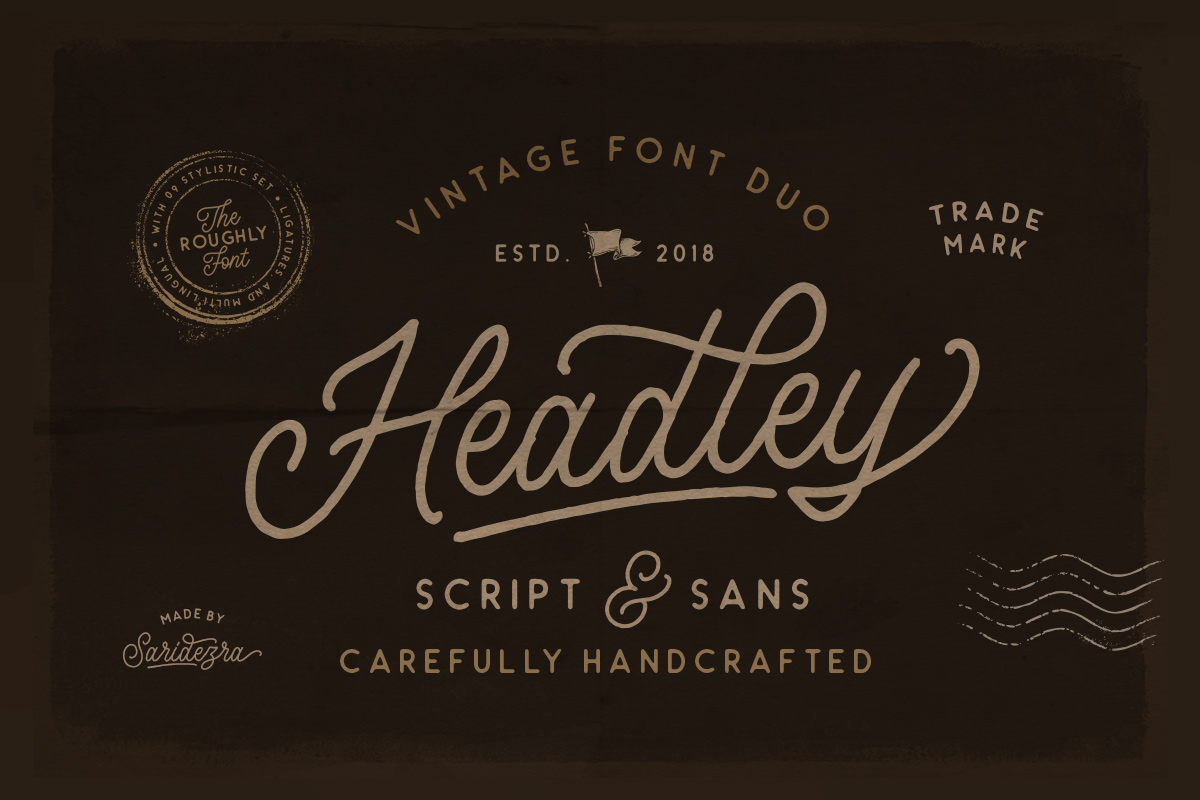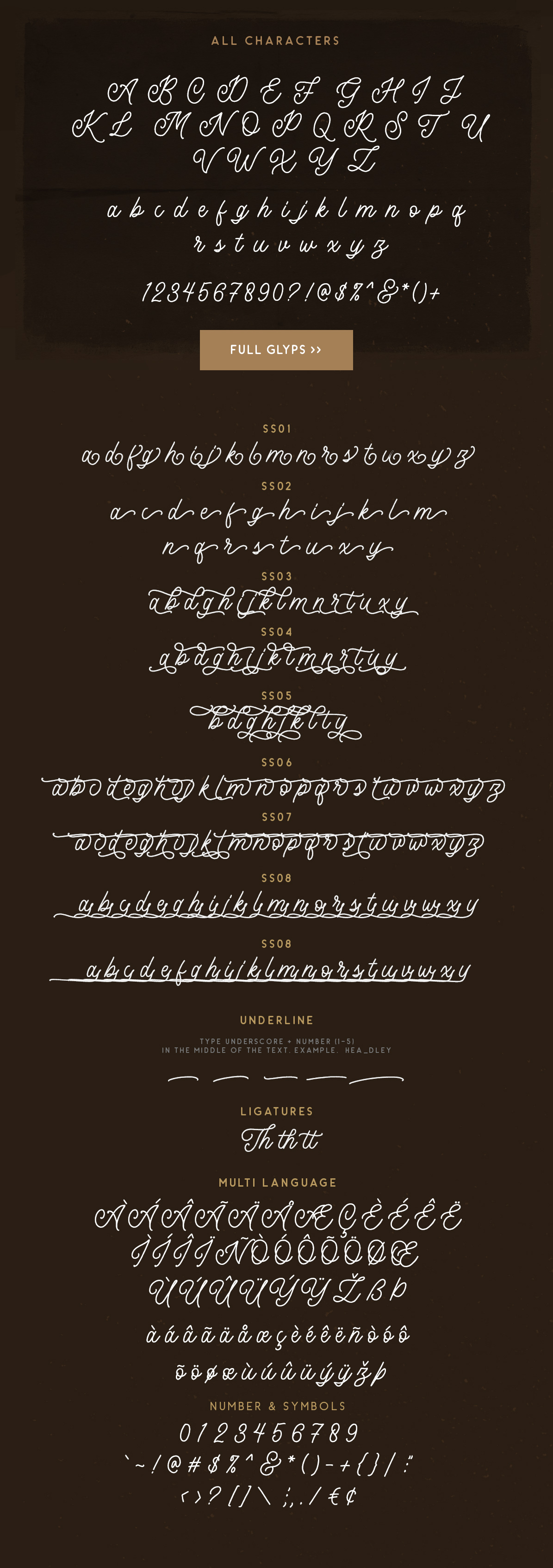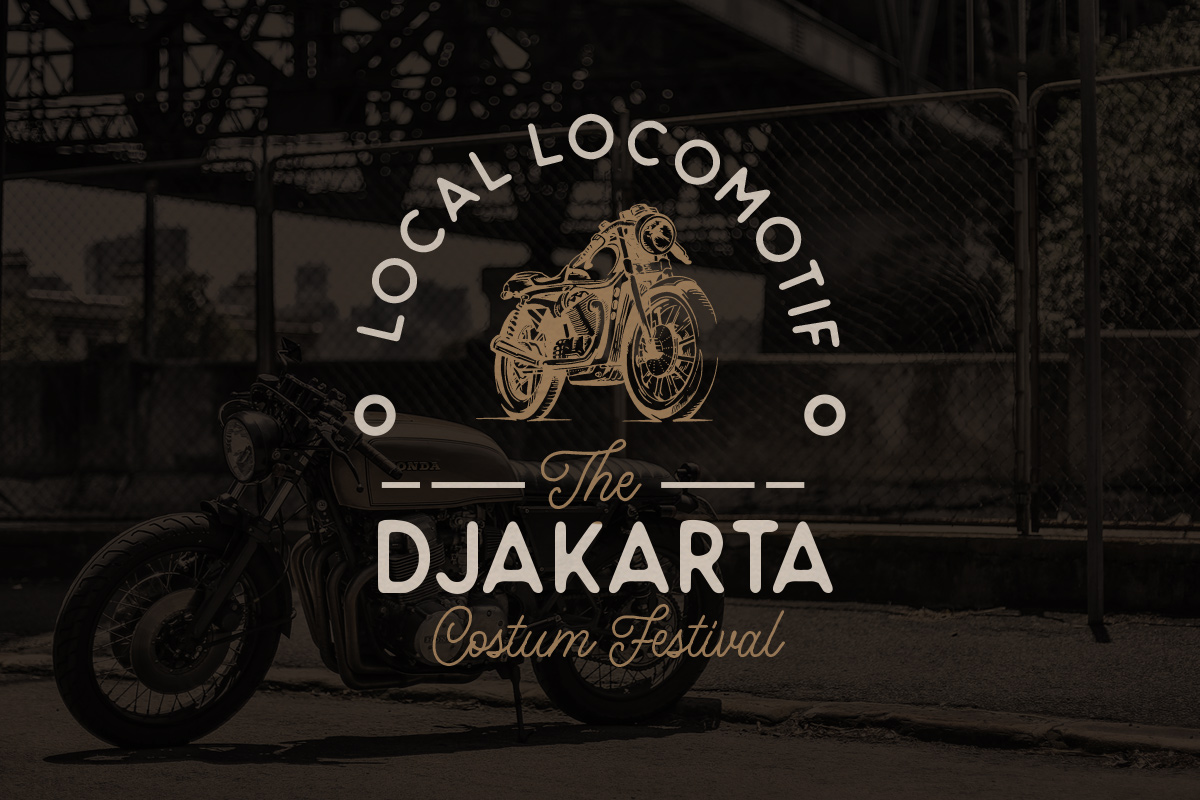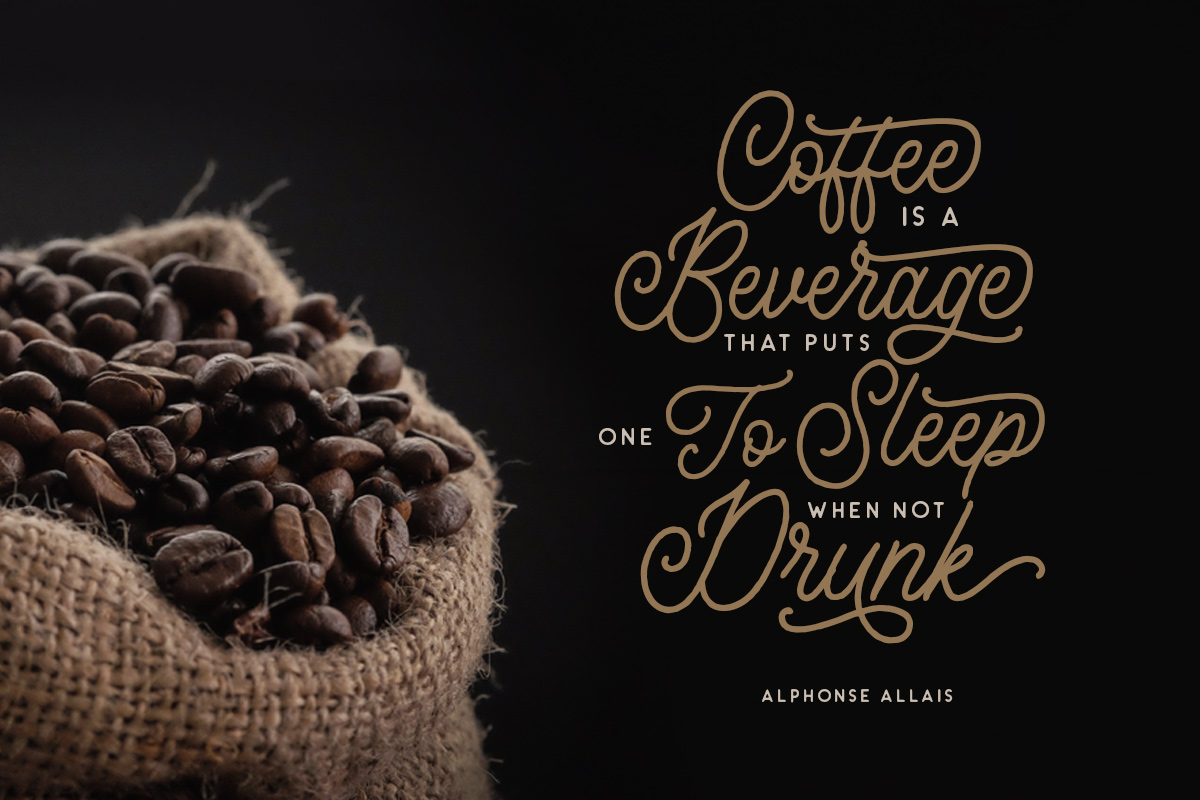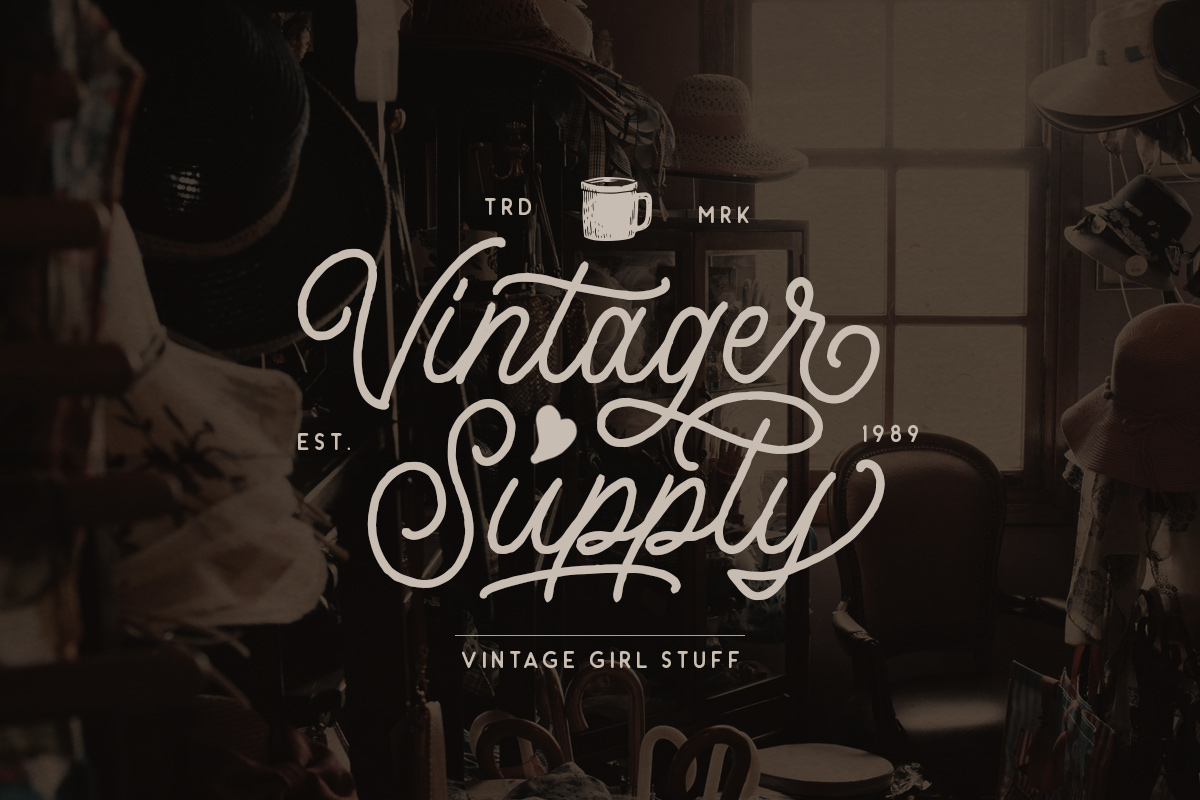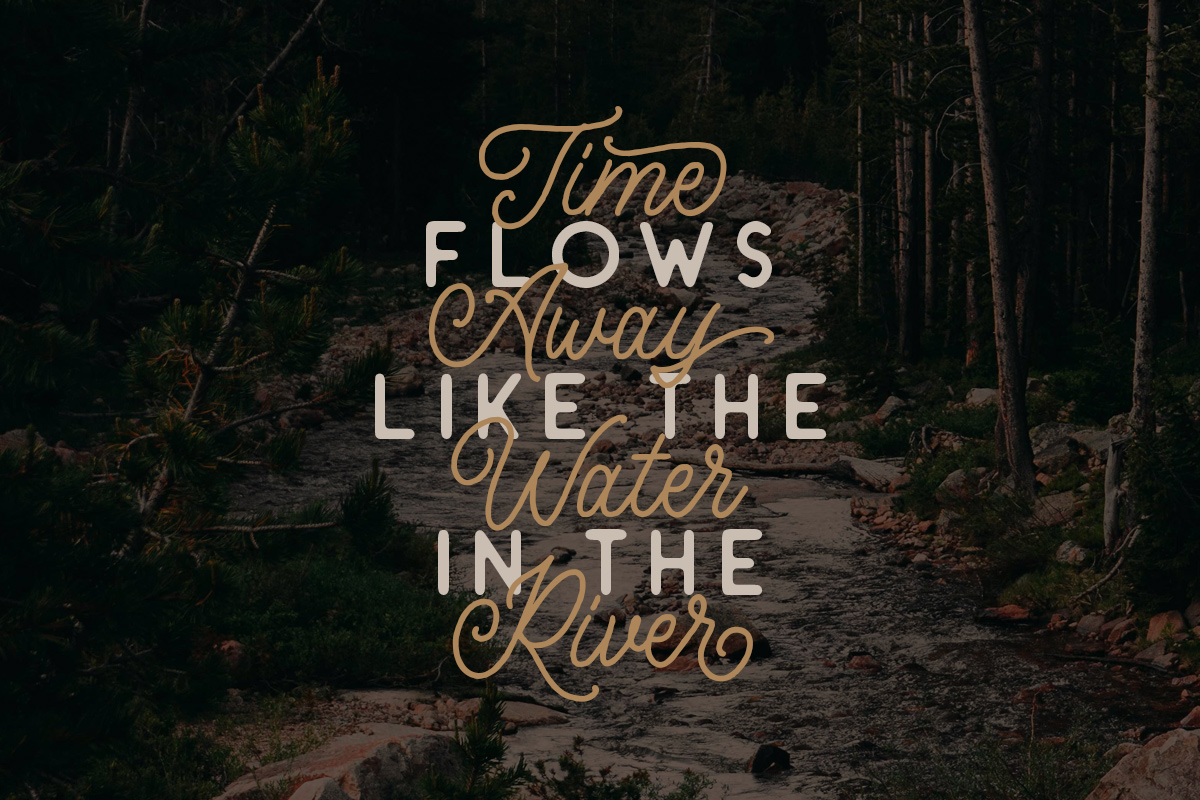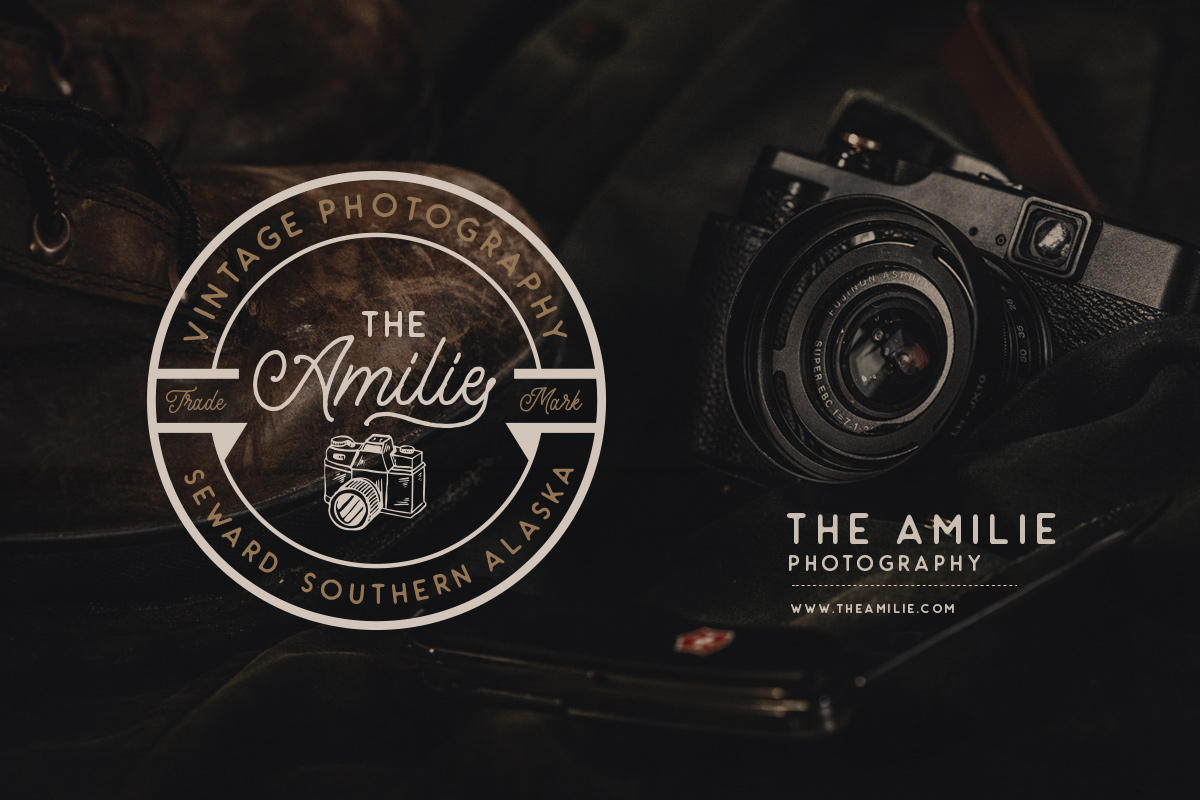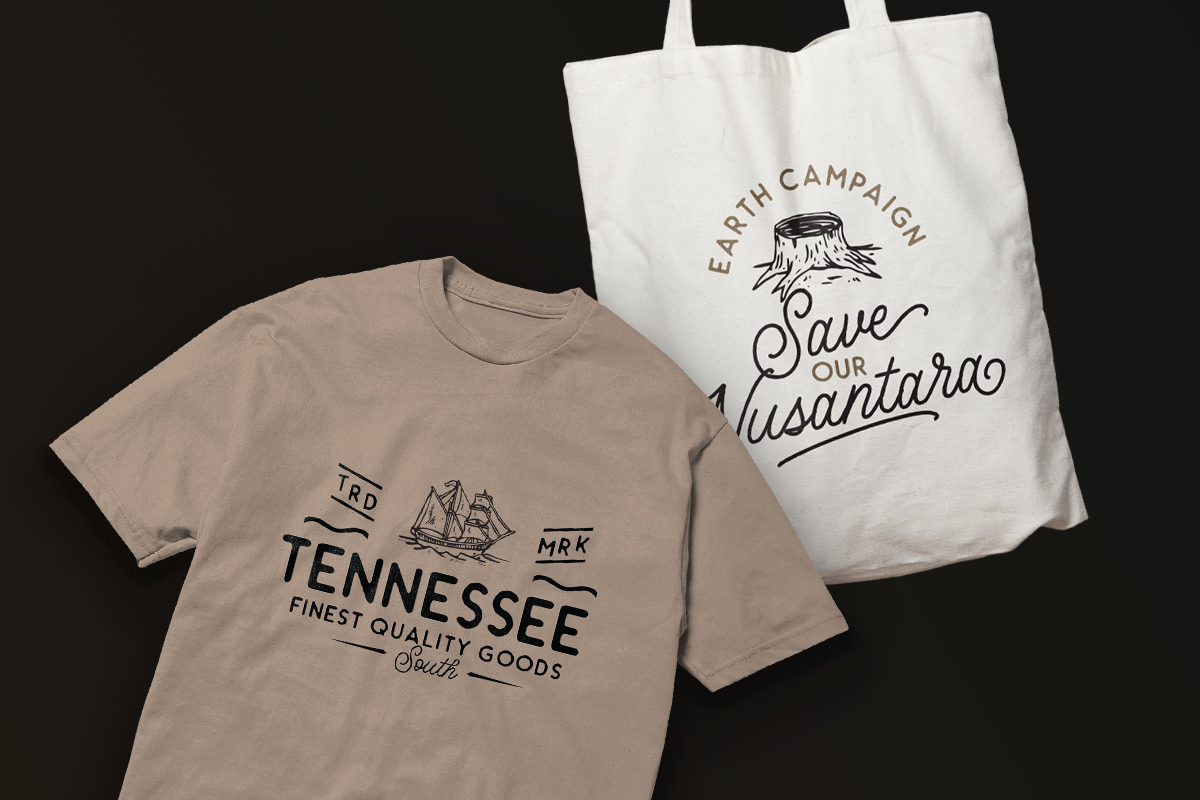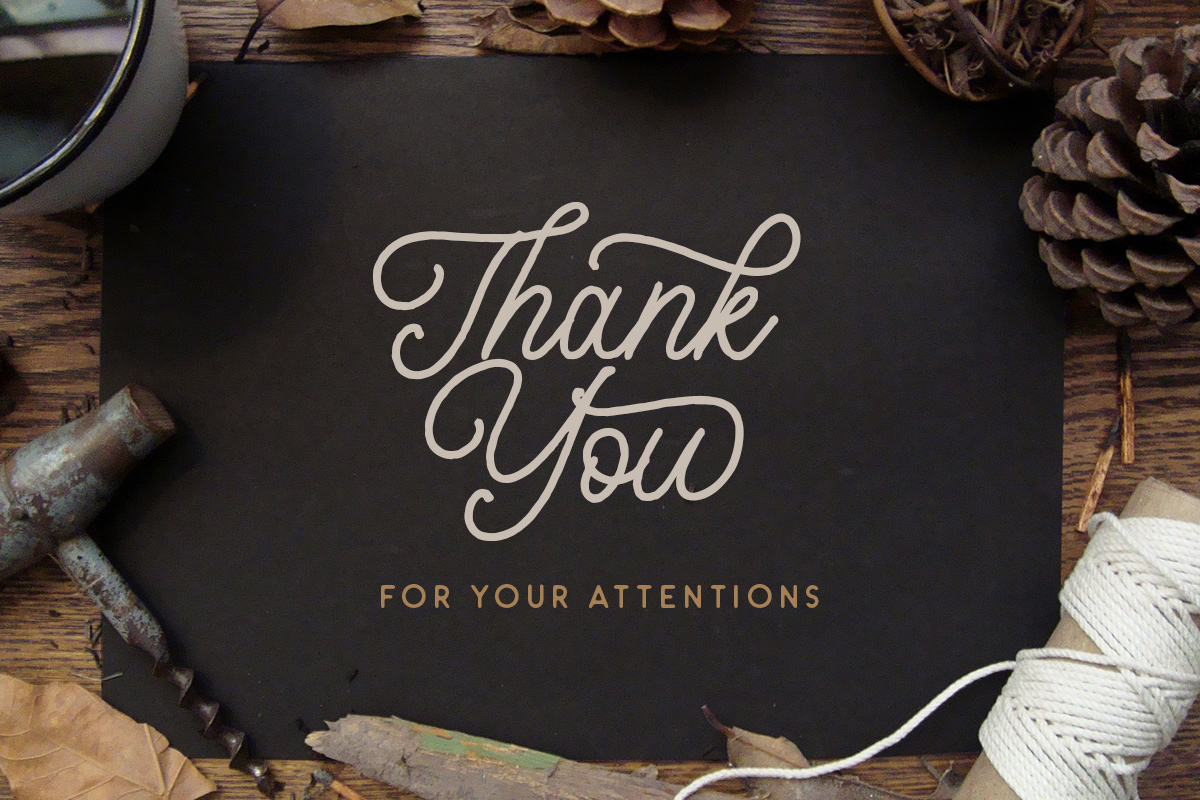
Headley – Vintage Font Duo is a handmade font duo. Contain two fonts, the rough sans and monoline script. You can use this font for every project. Suitable for branding logo, hand lettering, or apparel design. This font duo also support multilingual, number and symbol, alternates, swash, and underline. Also this font already PUA Encoded.
Instructions PS: Type underscore + number (from 1 to 5). Or copy Hea_3dley in preview bellow..